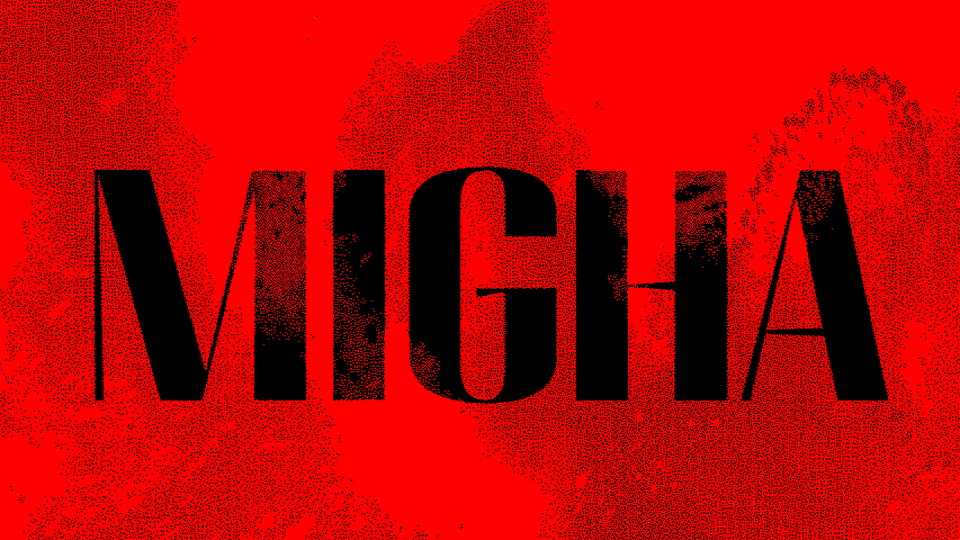
Download Migha typeface, a display variable font in 6 weights, 4 wights, contrast and slant axis, designed with a modern and vintage feel. Migha is perfect for any branding, magazine, posters, logos, titles, blogs, and more.